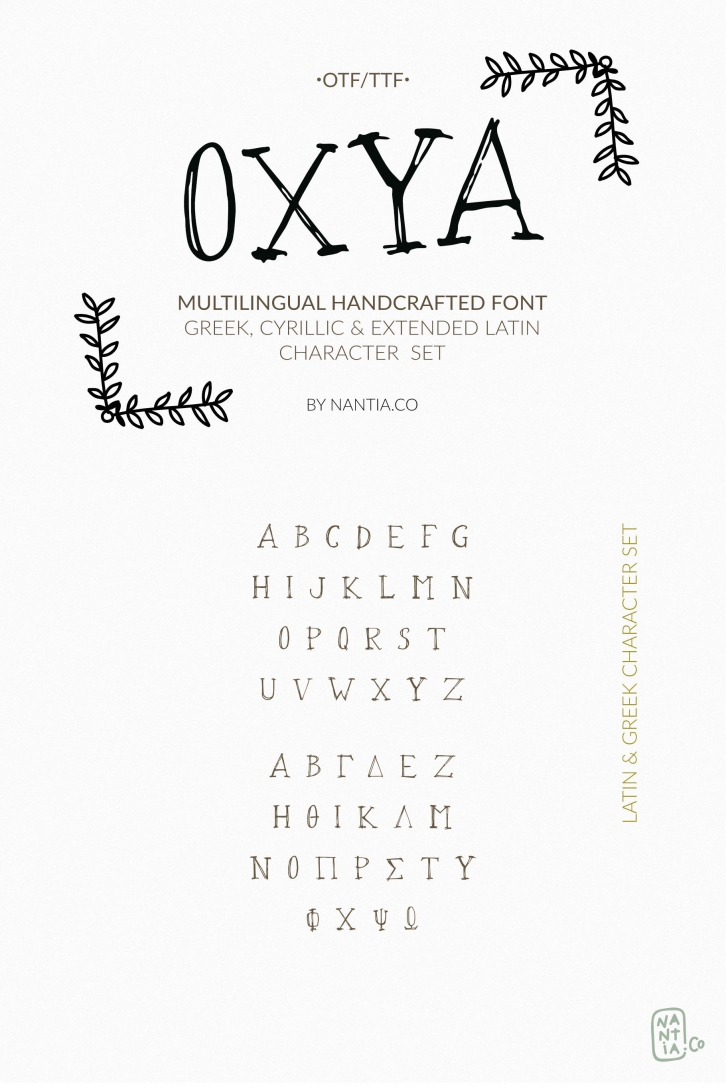
OXYA Cyrillic Greek Handcrafted Font
OXYA Cyrillic Greek Handcrafted Font is a handwritten, multilingual display font. Of course, with this typeface you have access to Greek, Cyrillic and Extended Latin set of characters. Numerals and basic symbols, in two file types TrueType and Opentype are included.
With this fun font, you can achieve on the spot a real handmade aesthetic for your projects. The authentic handwritten style of this typeface is perfect for your modern graphic design needs.
In addition, this messy handwriting font is the perfect addition for baby shower invitations or any craft project. Similarly, you can use it on Instagram quote posts or any other social media content. Not to mention that designing restaurant menus or any natural organic product packaging has never been easier with the help of the OXYA Handcrafted Font. Again, if you are a crafting aficionado this is the ideal scrapbooking font to have in your collection! Made with love with a fountain pen.
• Extended Latin character set,
• Cyrillic character set,
• Greek character set,
• punctuation marks,
• diacritics and
• numbers.